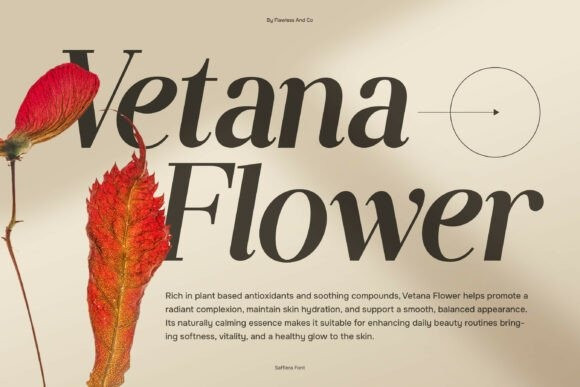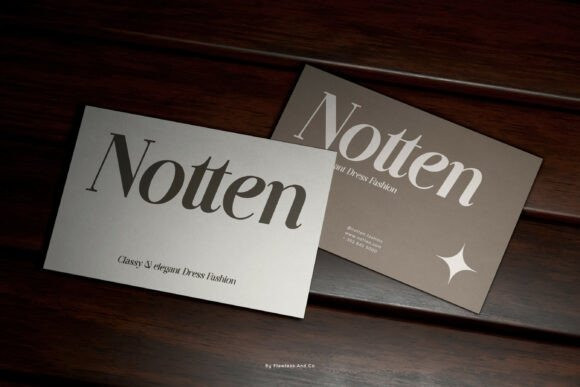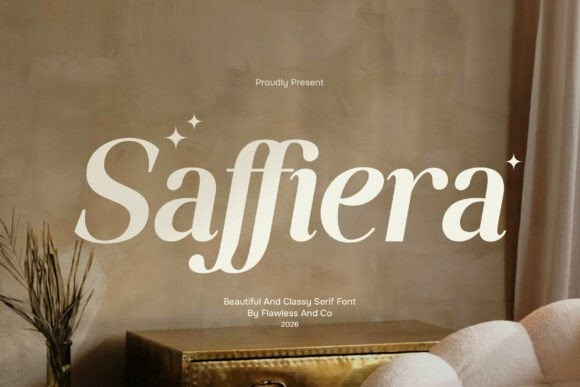
Saffiera Font
Saffiera Font is a beautiful and classy serif font that captures the essence of elegance and modern beauty. Designed with graceful curves and well-balanced letterforms, Saffiera brings a luxurious and sophisticated feel to any design. Its stylish details and smooth contrast make it perfect for creating visually stunning typography that feels both timeless and contemporary.